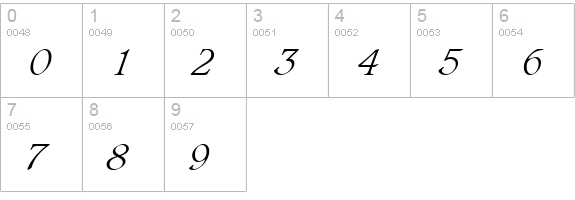
Caxton Light Italic BT Font Details
Caxton Light Italic BT is a refined, elegant, italic variant in the Caxton typeface family \xE2\x80\x94 well suited to elegant body text, refined sub-headings, and luxury branding.
Caxton Light Italic BT font exudes elegance and sophistication with its delicate and refined curves. The graceful slant of the italicized characters adds a touch of flair to any design project, making it ideal for adding a touch of sophistication to invitations, branding materials, and more. What sets Caxton Light Italic BT font apart is not just its aesthetic appeal, but also its versatility. Whether used for headlines, body text, or signage, this font maintains readability while still making a statement. And the best part? Caxton Light Italic BT font is available for free download at FontsMarket.com. Now you can elevate your designs with this beautiful font without breaking the bank. Download it today and add a touch of elegance to your next project!